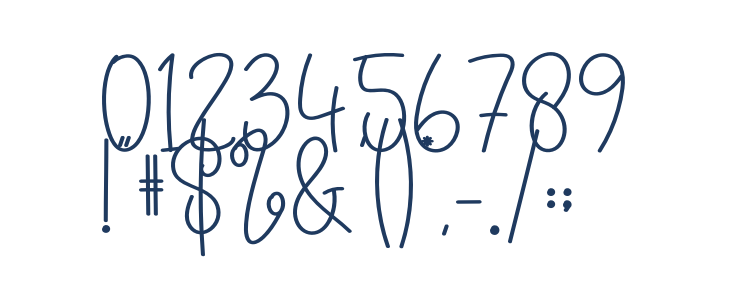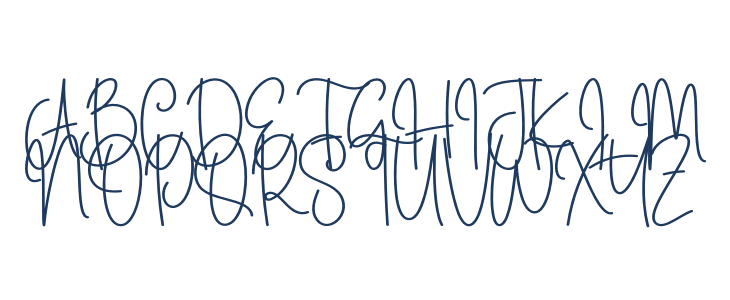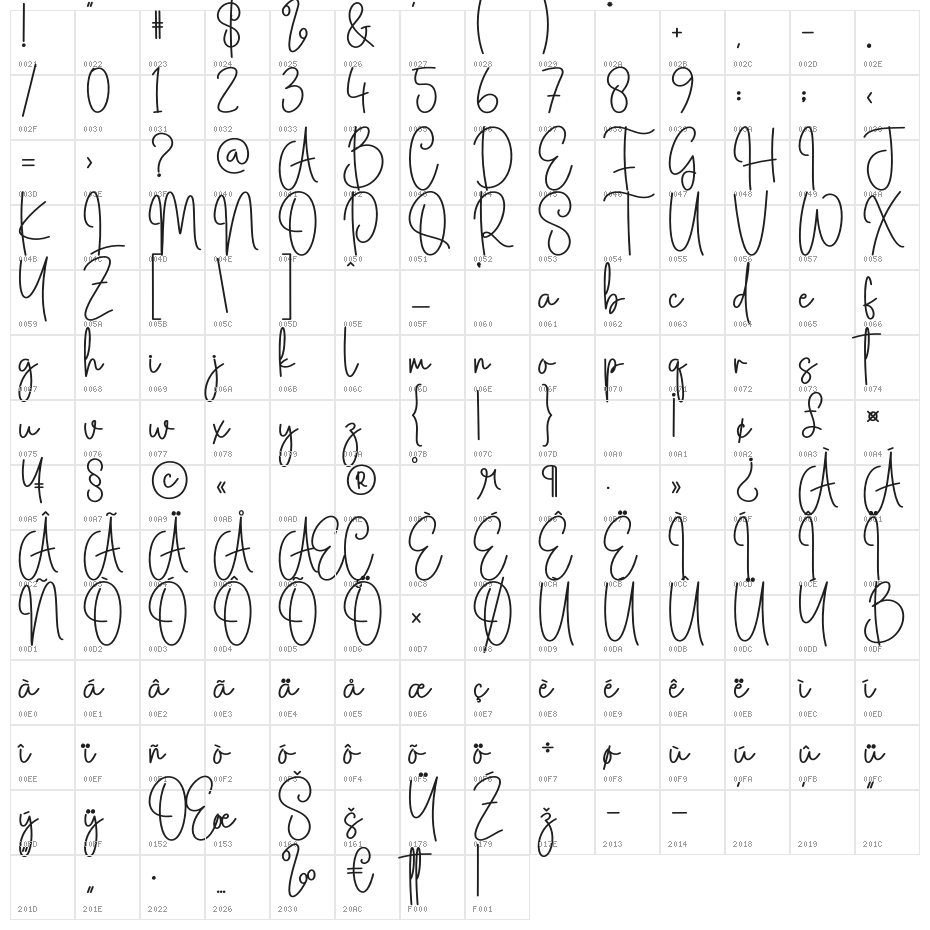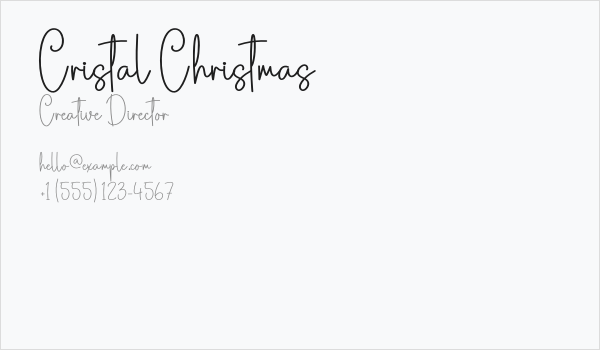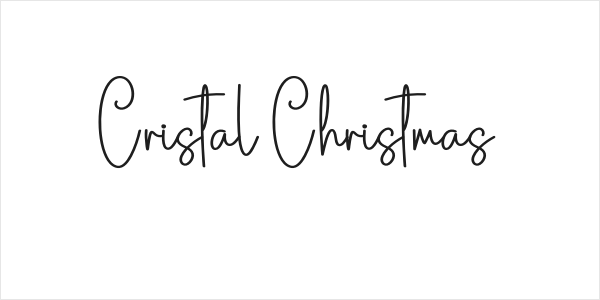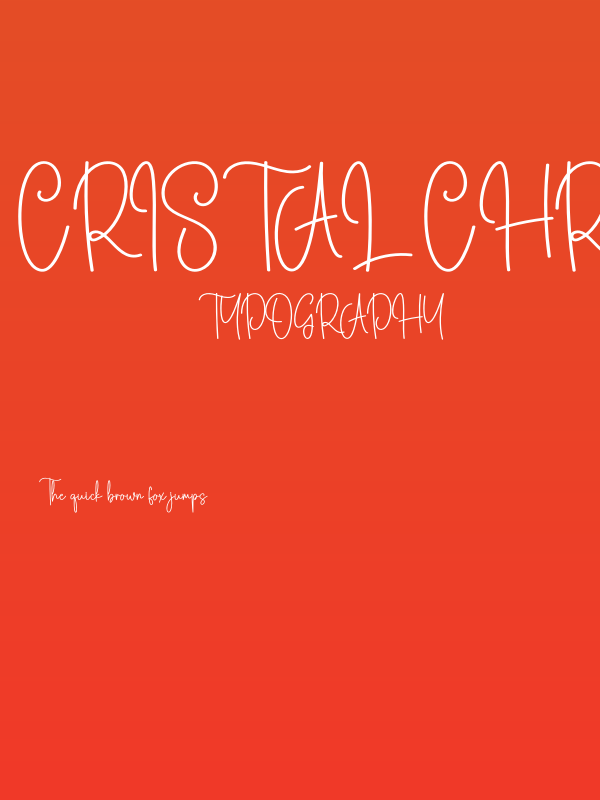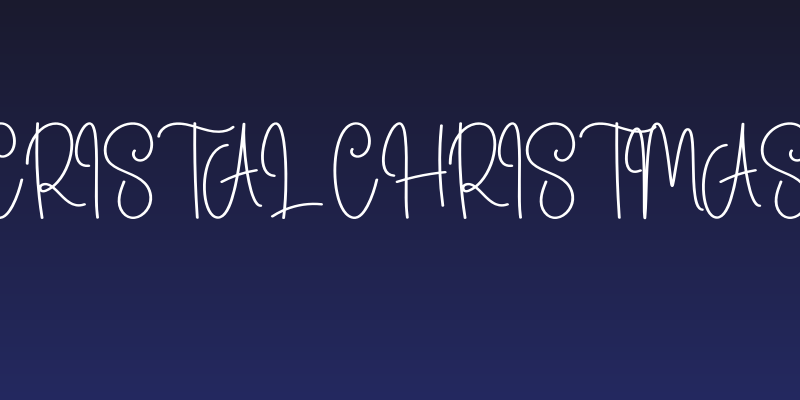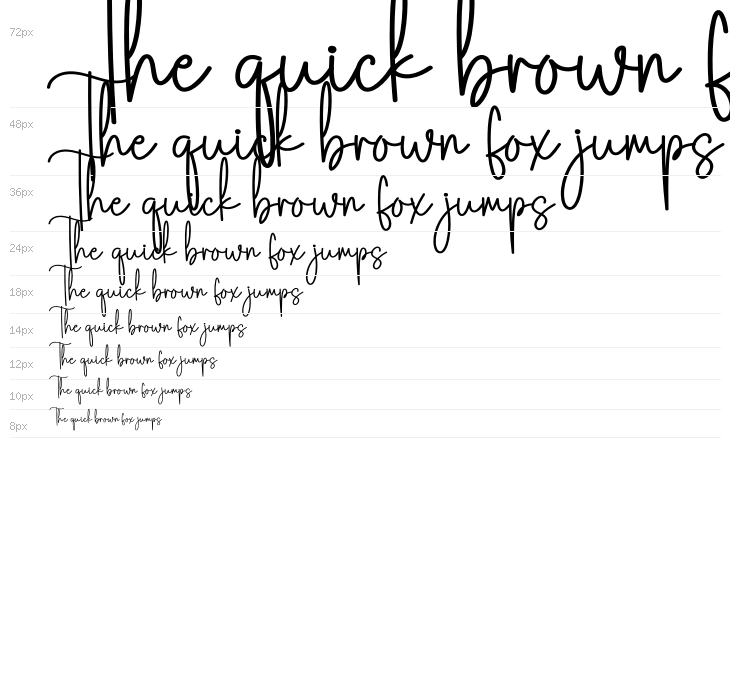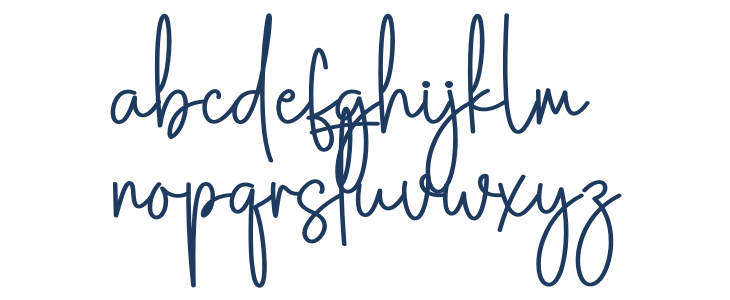
Cristal Christmas Font
Cristal Christmas Description
A playful, handwritten script font with tall, narrow letterforms and exaggerated ascenders and descenders. The strokes are thin and consistent, giving it a whimsical and casual appearance.
| Overall Style | Decorative, Playful, Casual |
| Use Case | Headlines, Invitations, Greeting cards, Decorative text |
| Proposed Projects | Greeting cards, holiday invitations, playful branding, social media graphics, children's projects. |